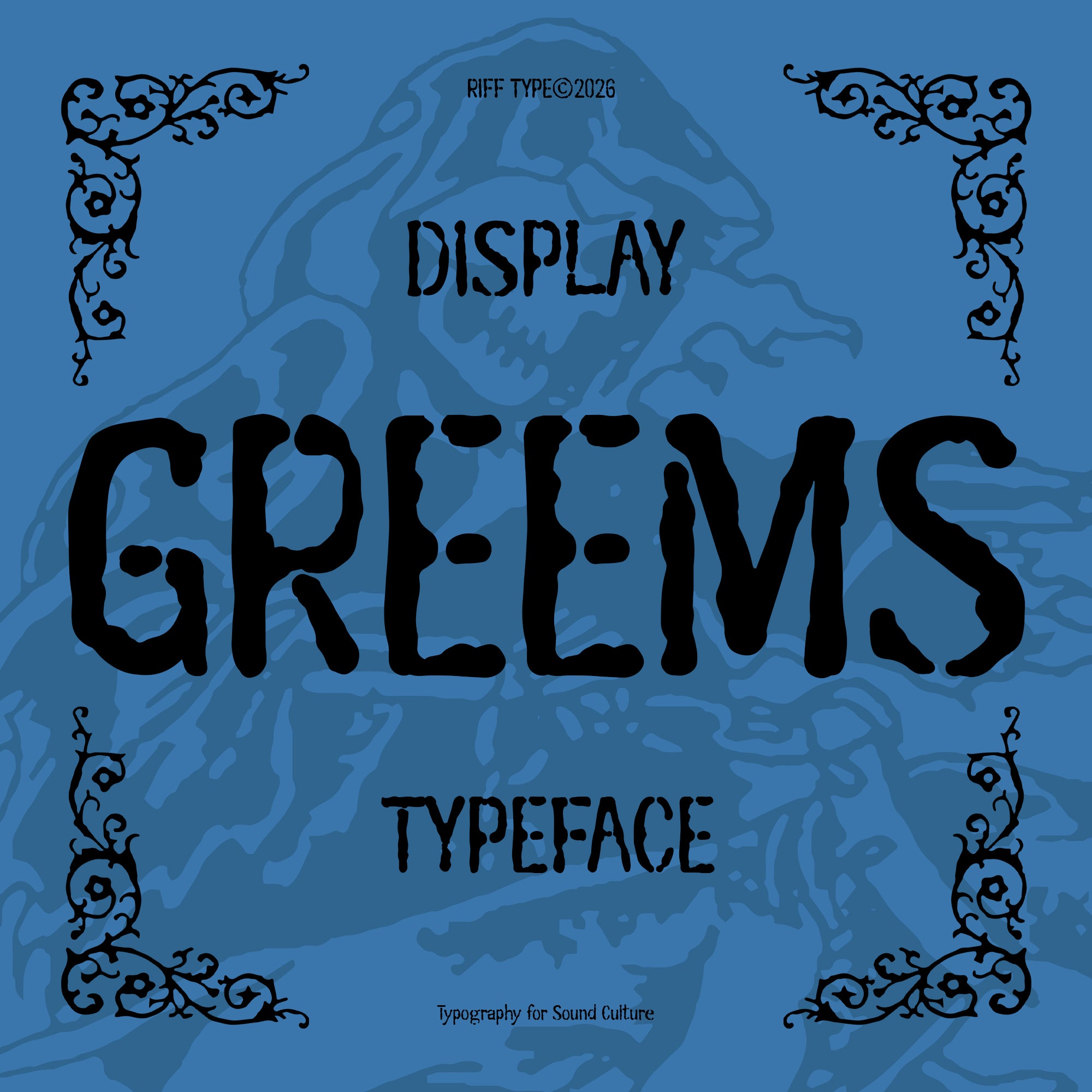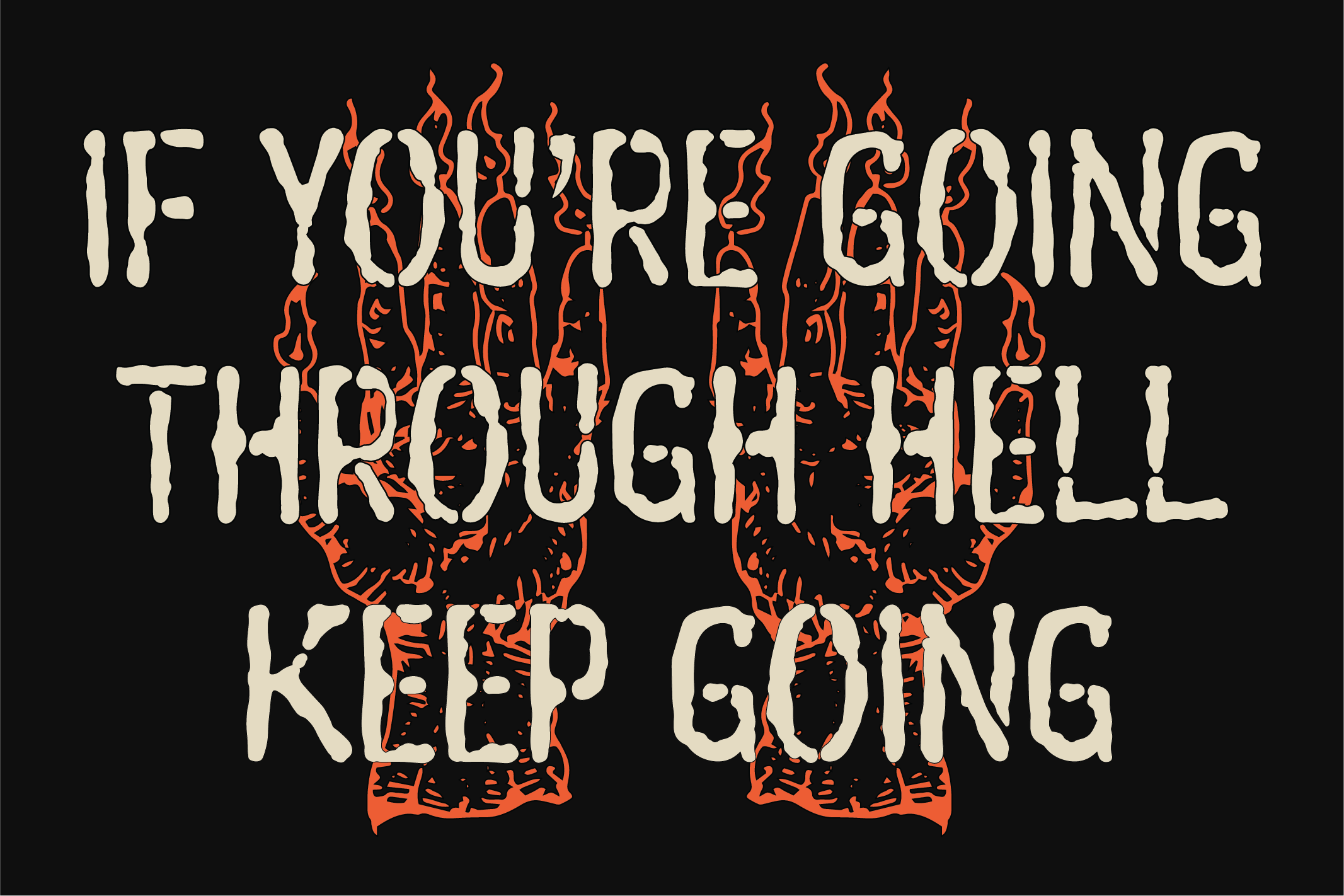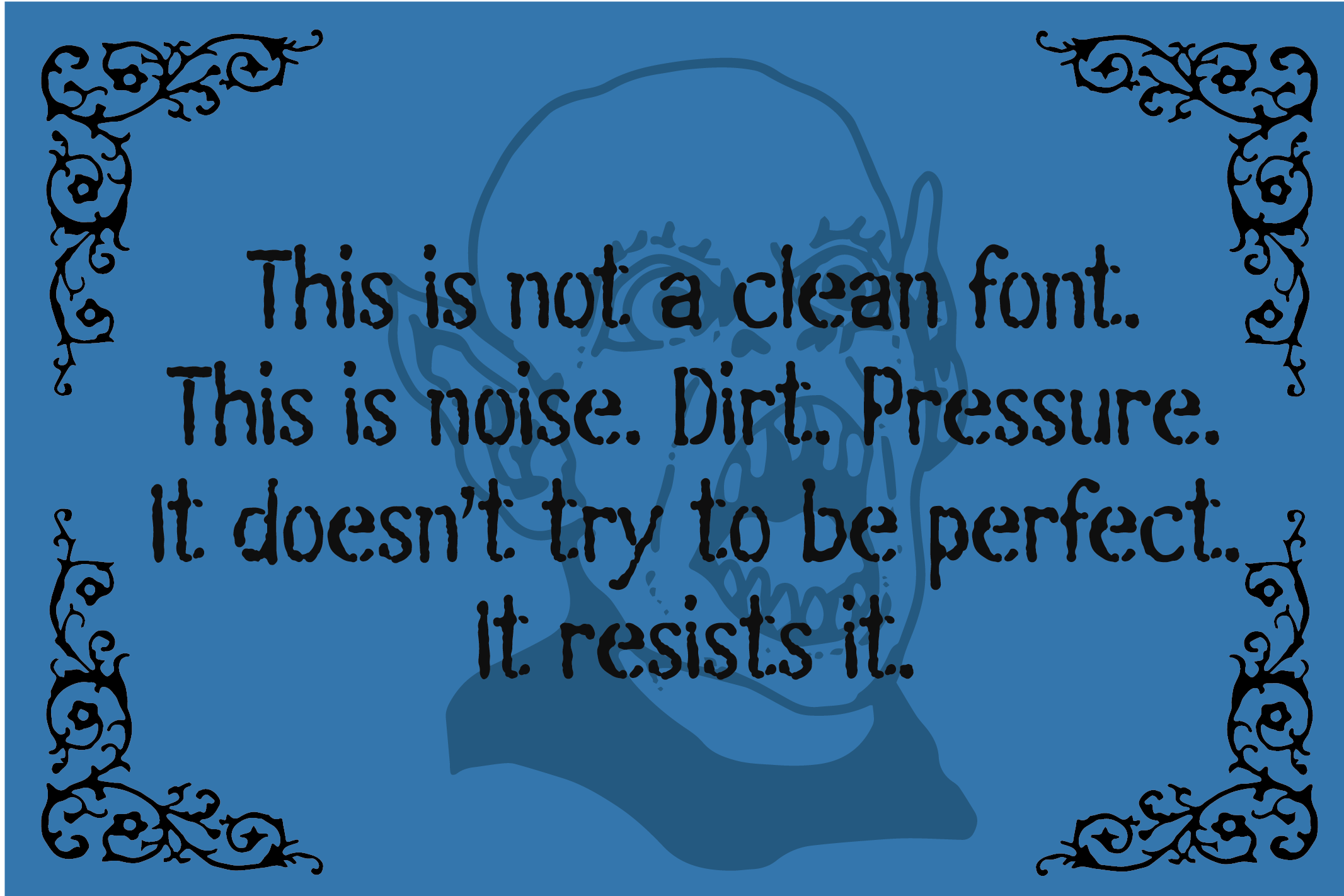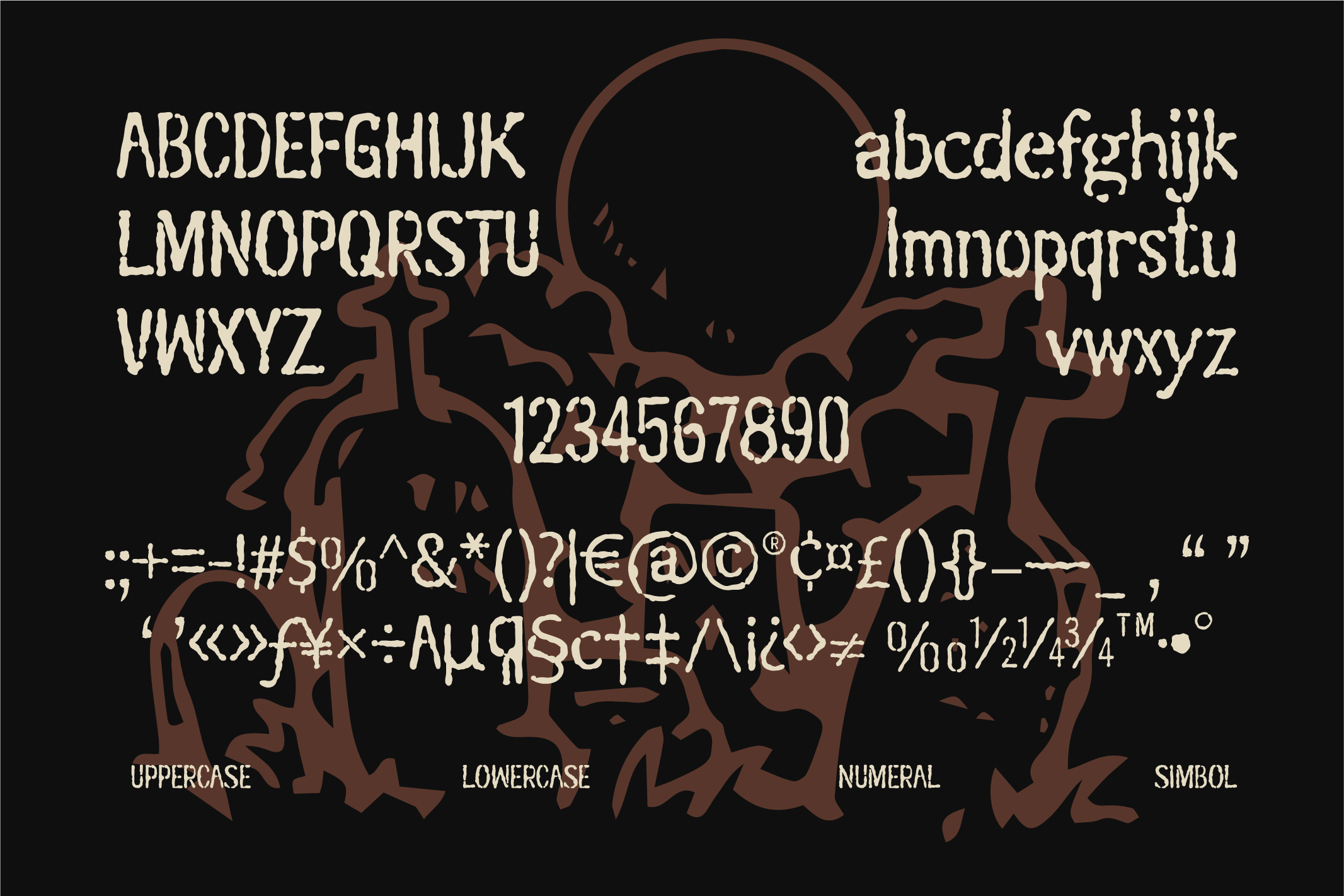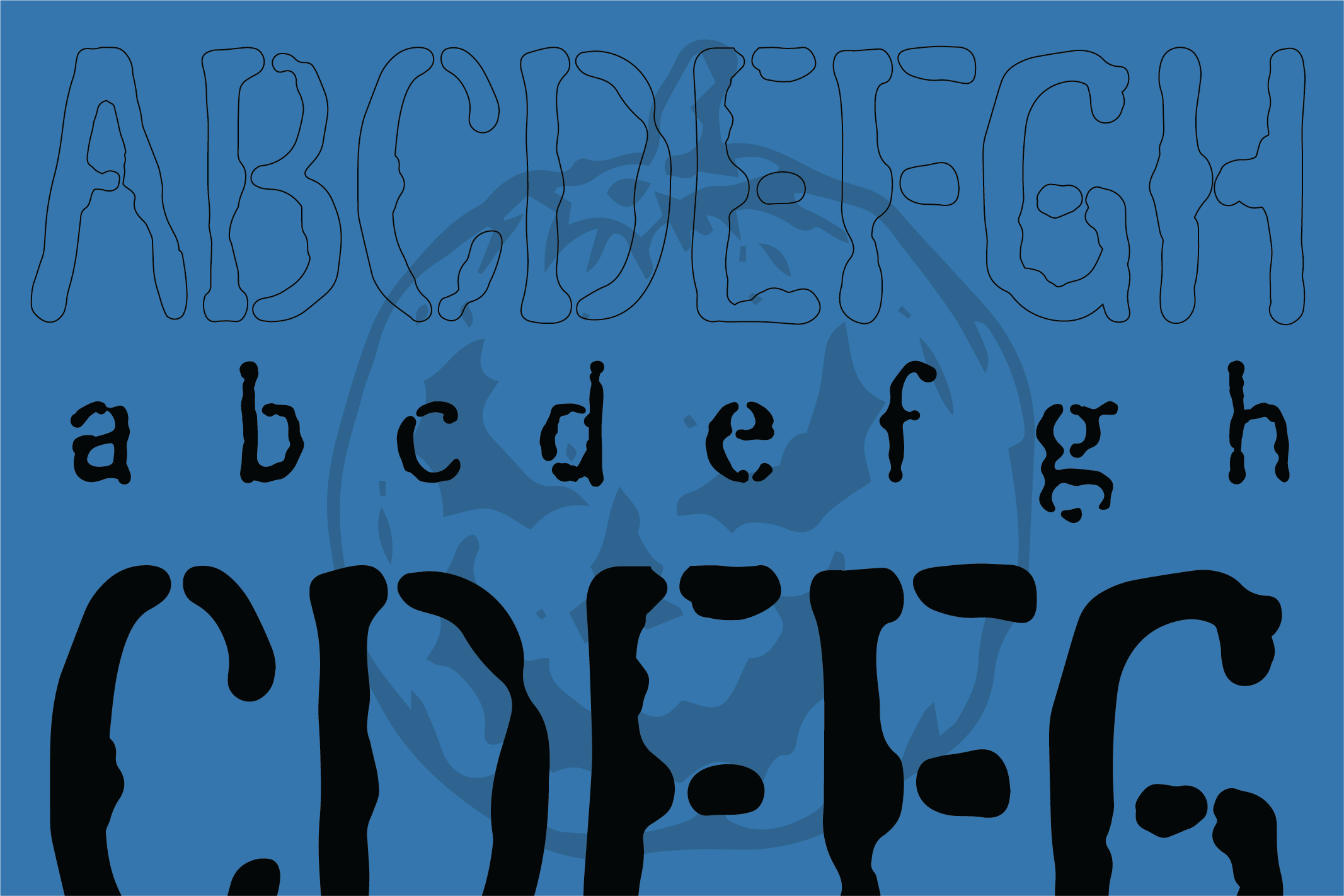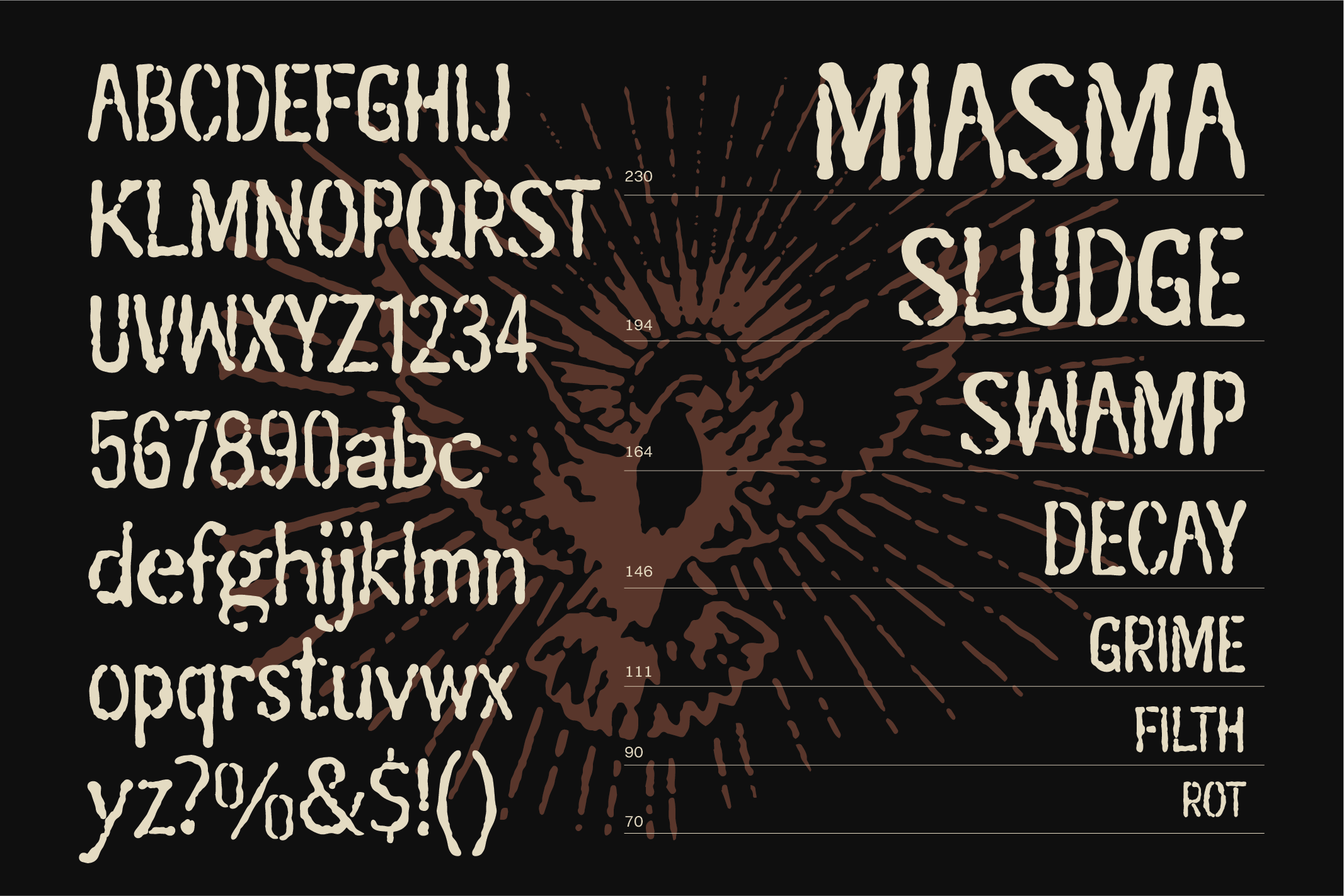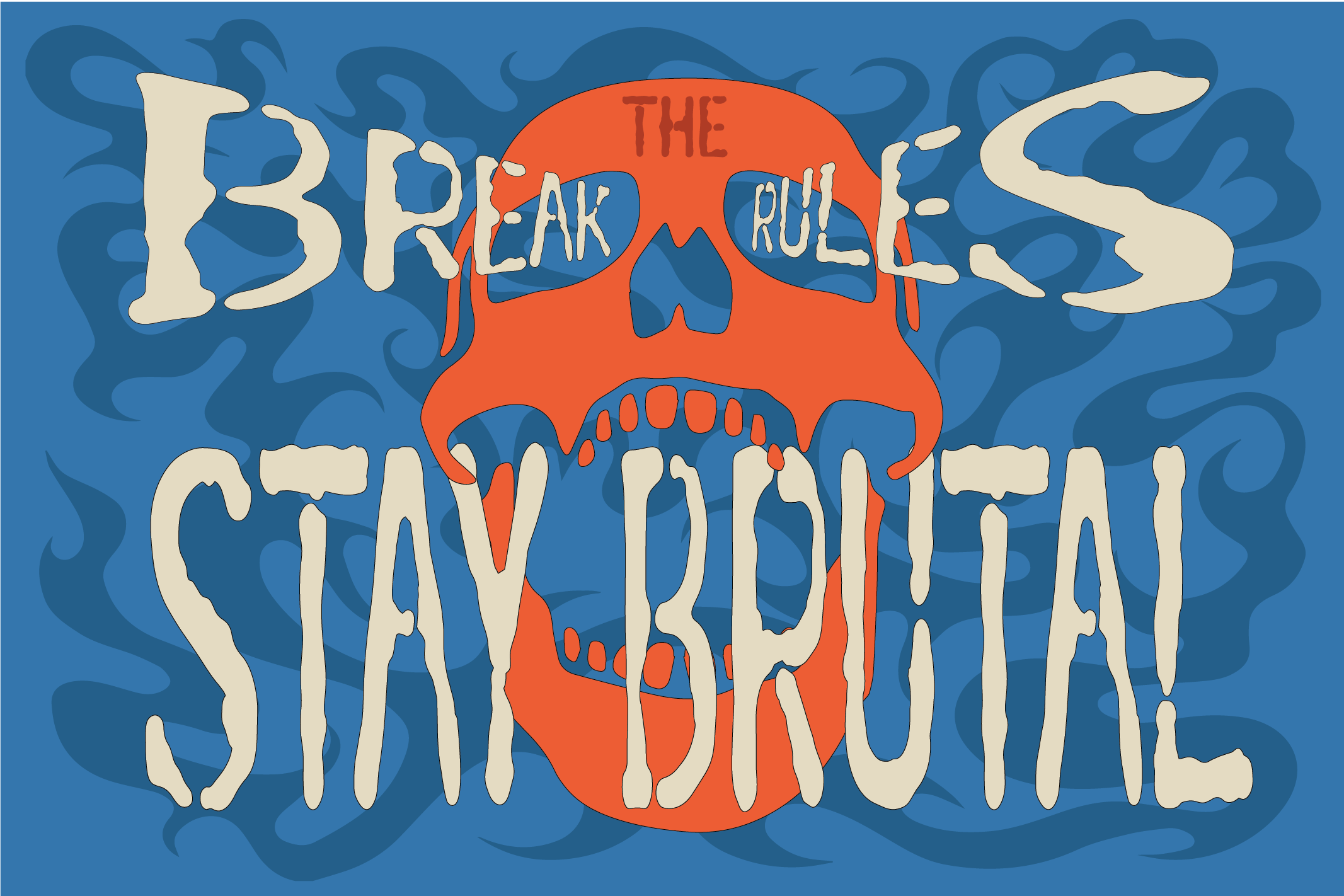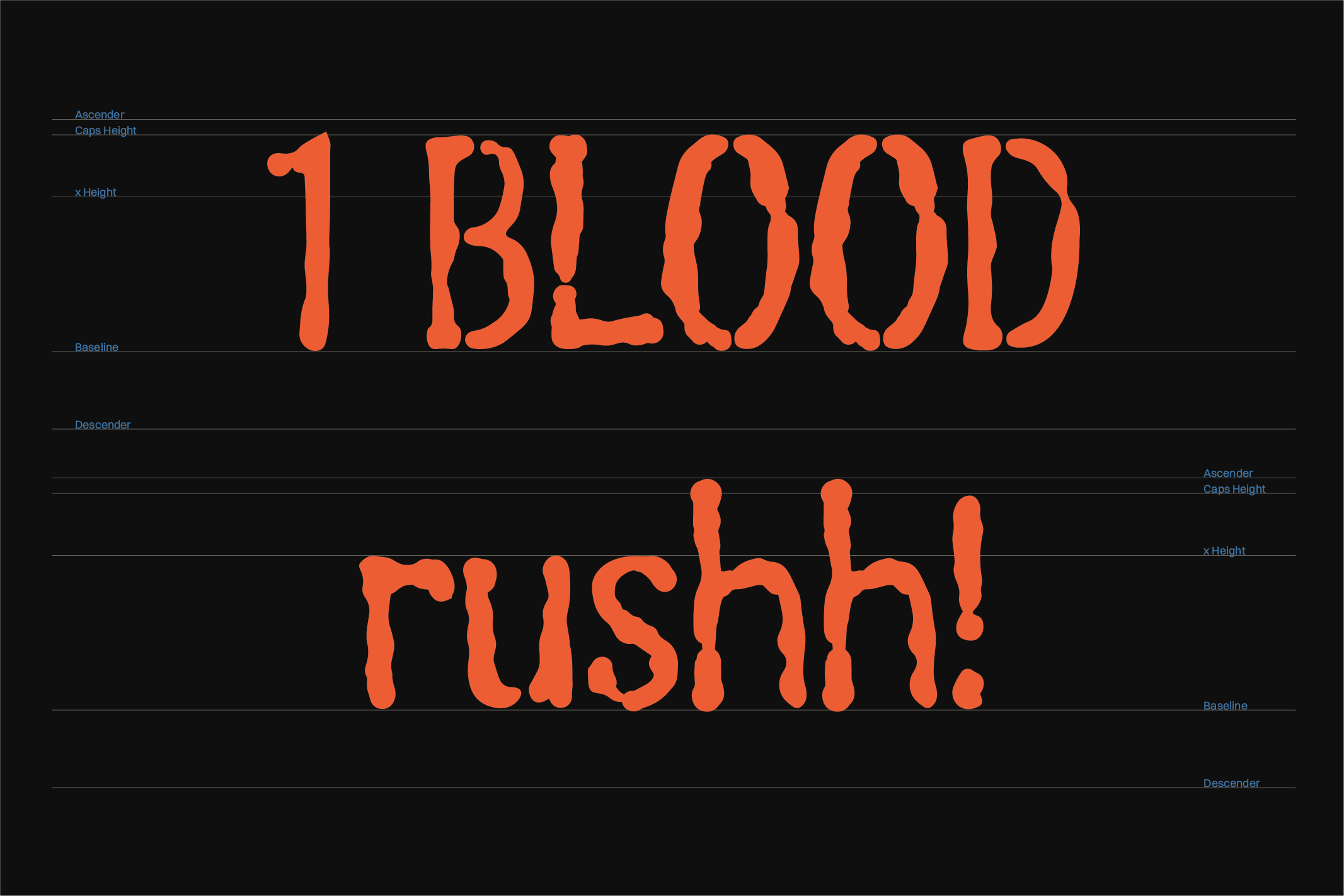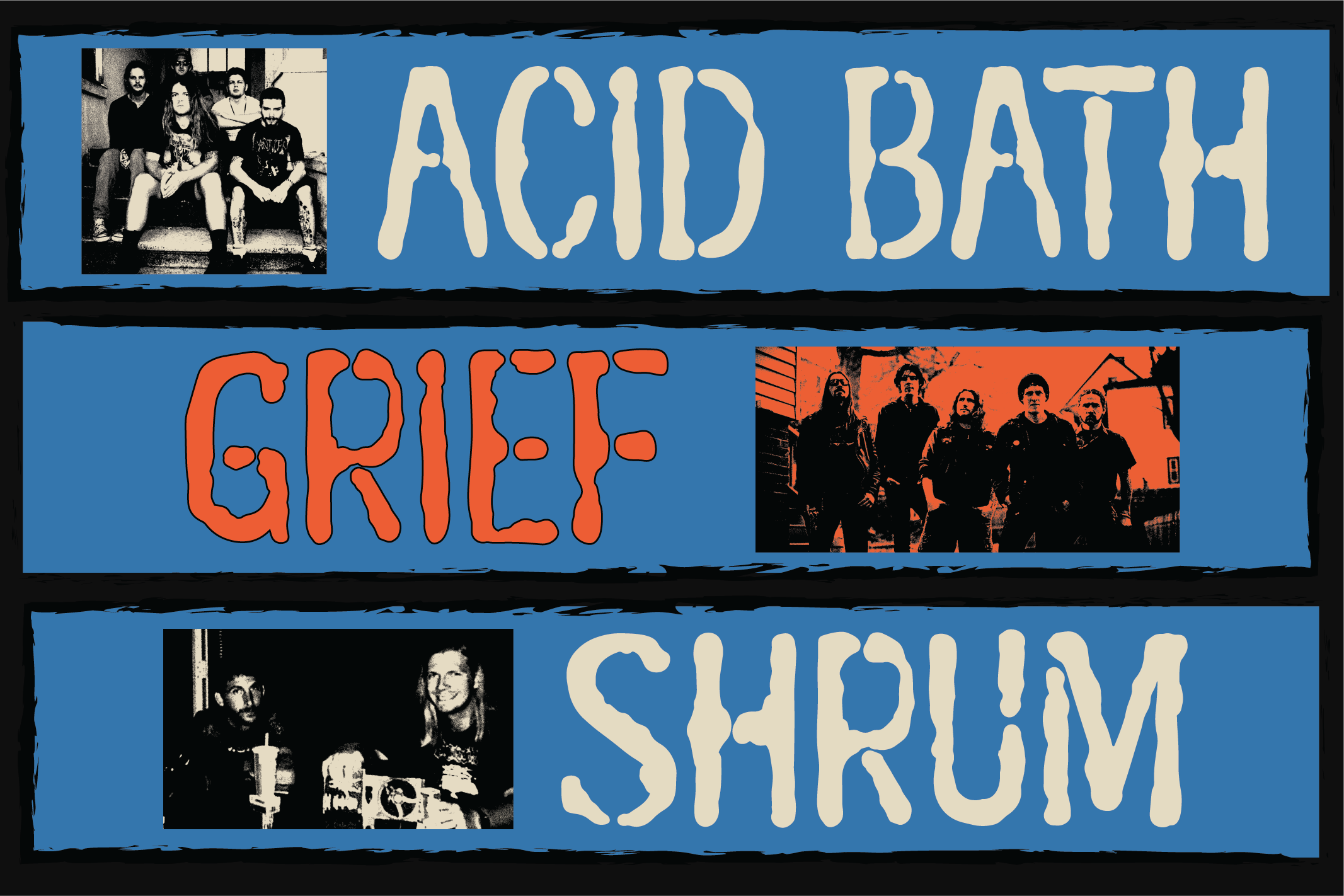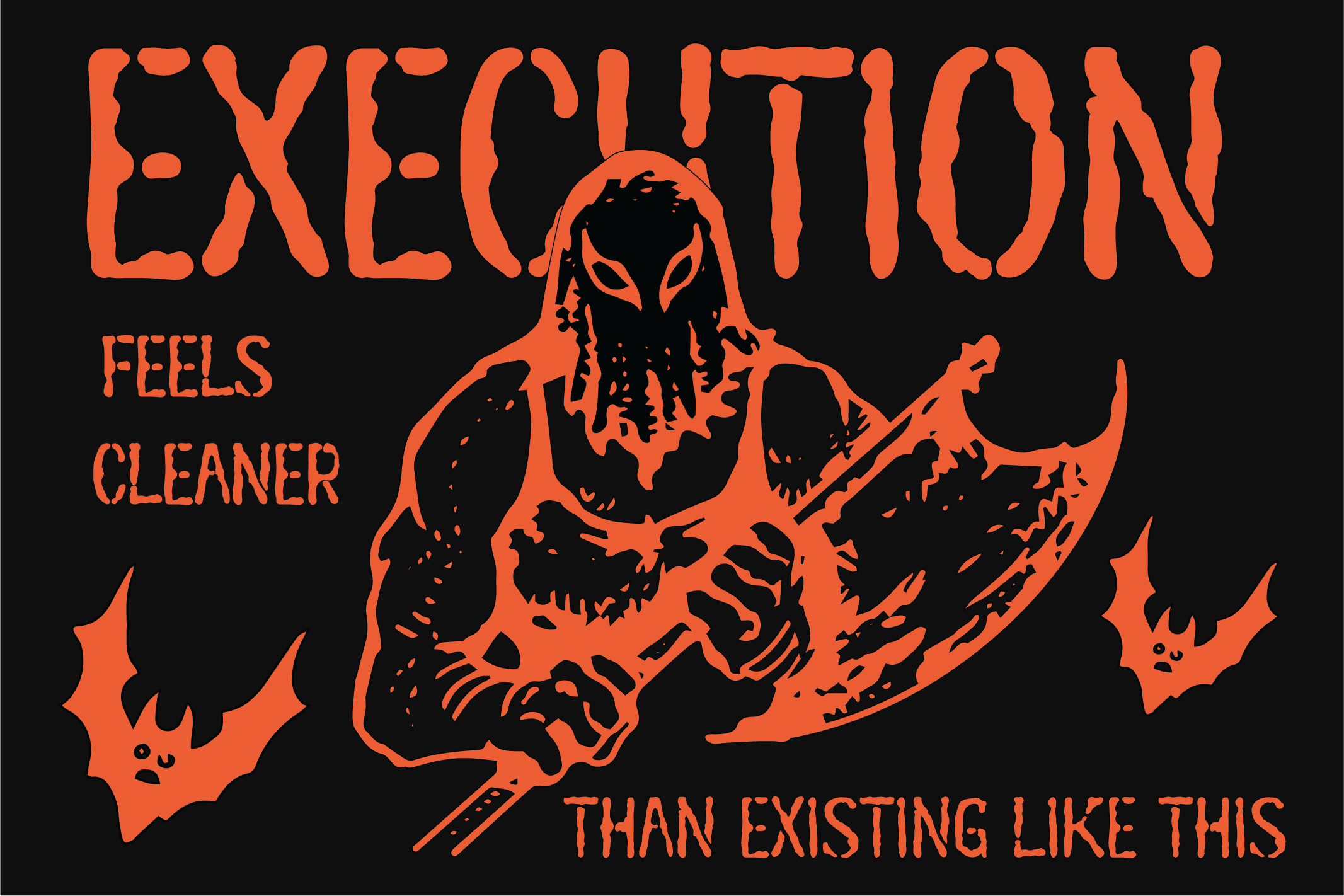
Greems - Doombringer Display Typeface
Greems is an imposing, high-contrast display font engineered to channel the raw, monolithic weight of underground subcultures. Merging visceral, organic distortions with an aggressive vertical presence, this typeface doesn't just sit on a page—it commands the entire visual space with sonic authority.
Greems - Doombringer Display Typeface is a high-contrast display font designed with a bold, monolithic style that features organic distortions and a strong vertical presence. The ZIP package includes TTF, OTF, WOFF, and WOFF2 file formats for versatile use.